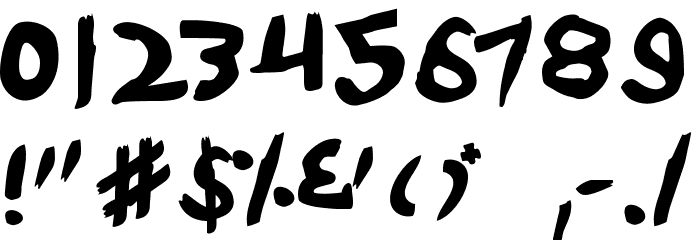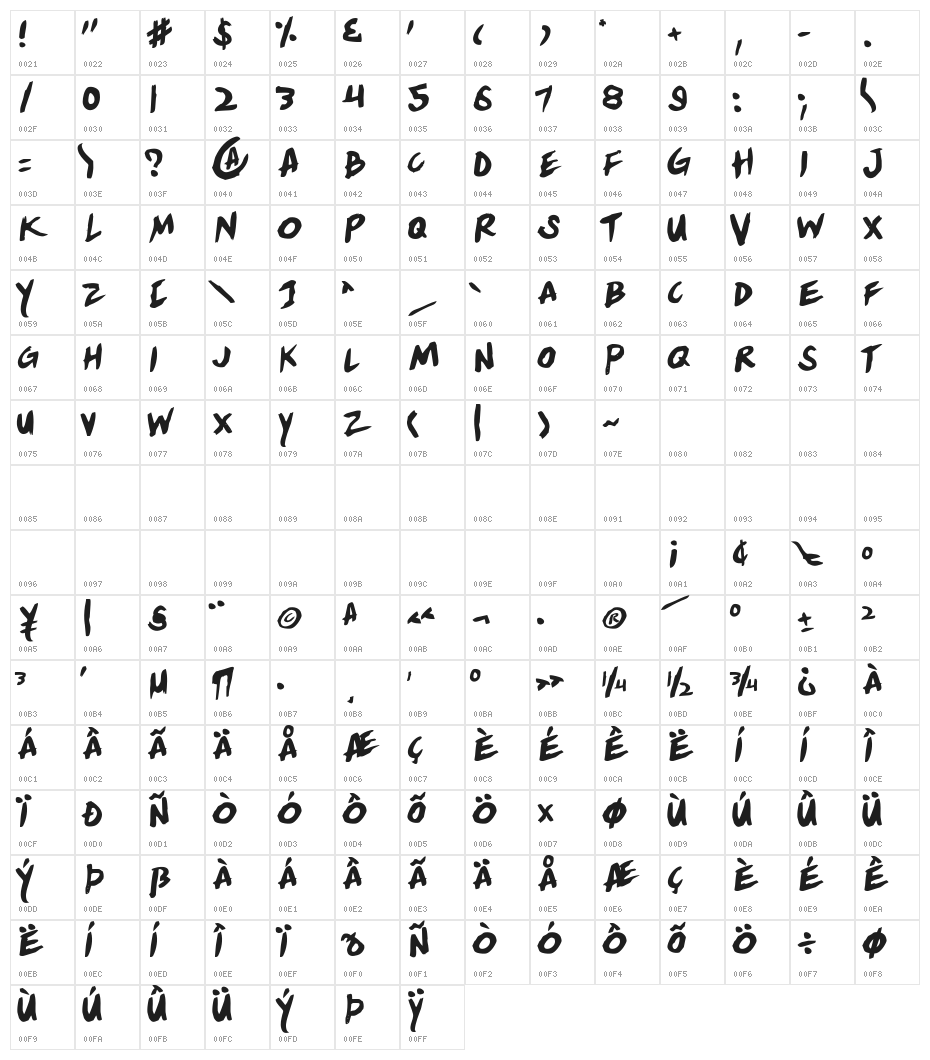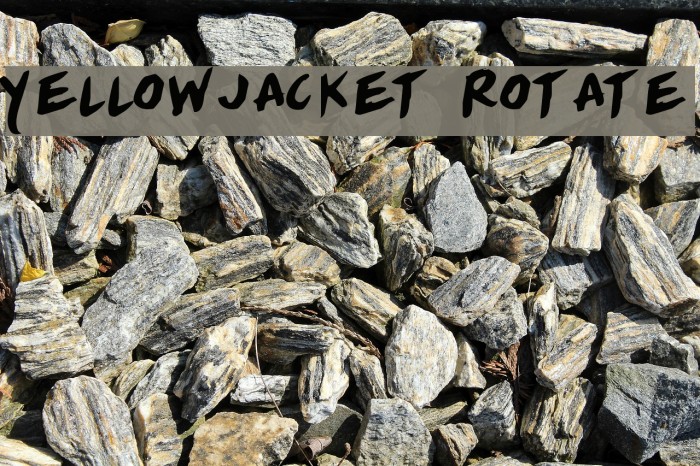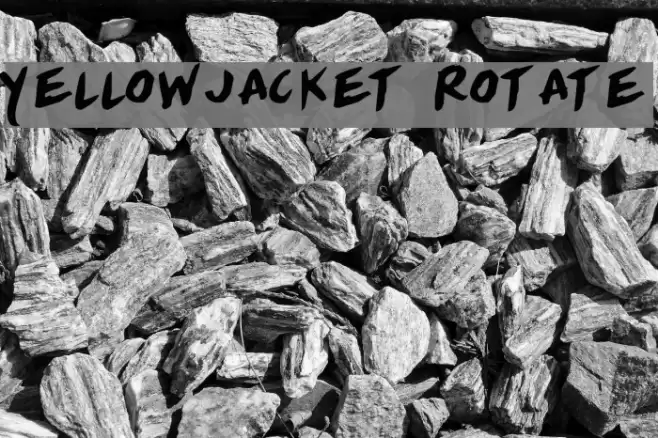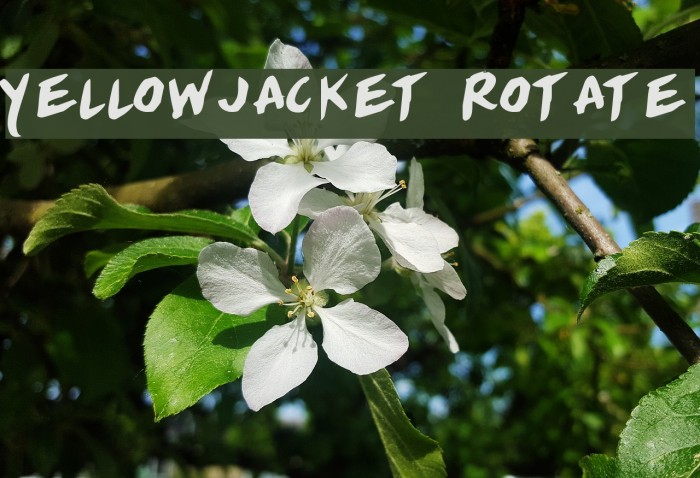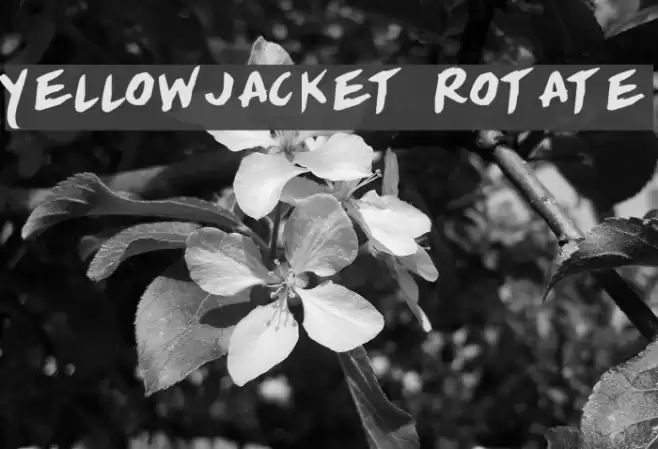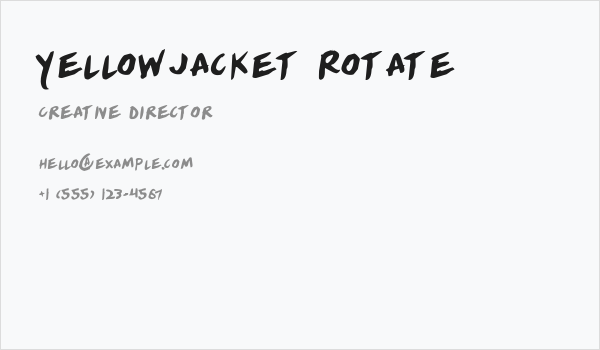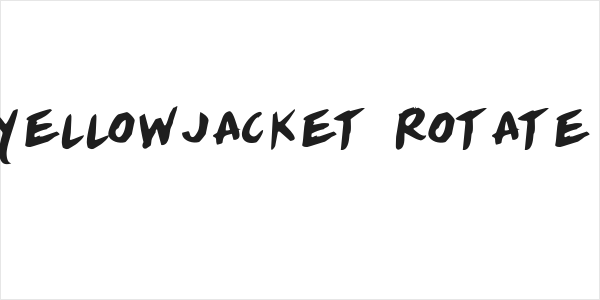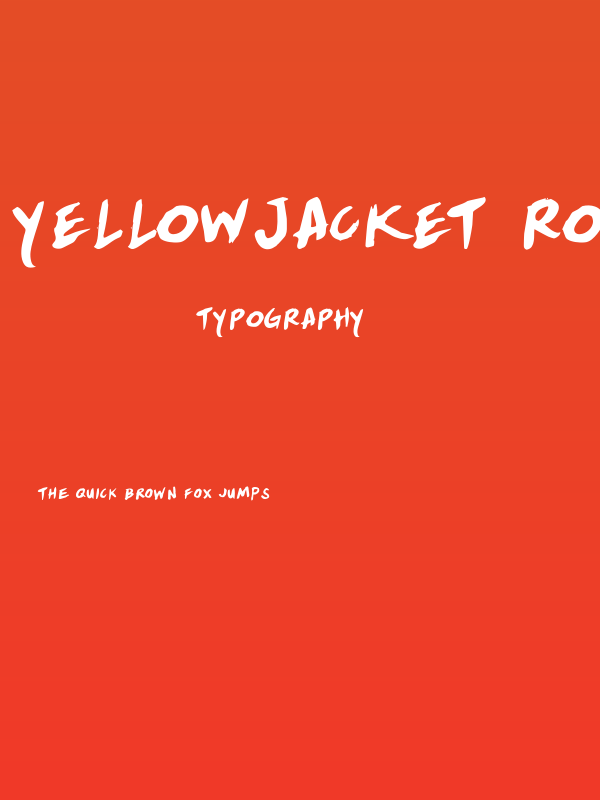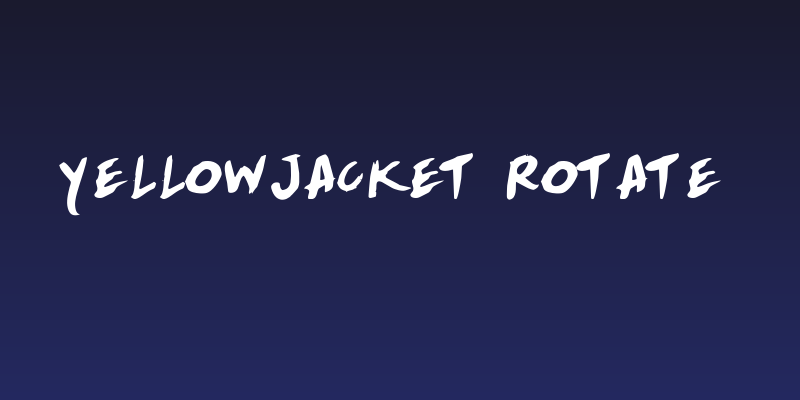
Yellowjacket Rotate Font
Yellowjacket Rotate Description
This font exudes a bold and energetic style, characterized by its thick, brush-like strokes that convey a sense of movement and dynamism. The letters are slightly slanted, adding to the impression of speed and fluidity. Each character is distinct, with a hand-painted appearance that gives it a personal and artistic touch. The uppercase and lowercase letters maintain a consistent style, while the numbers and special characters integrate seamlessly, ensuring versatility across various applications. The overall design is both modern and expressive, making it suitable for projects that require a strong visual impact.